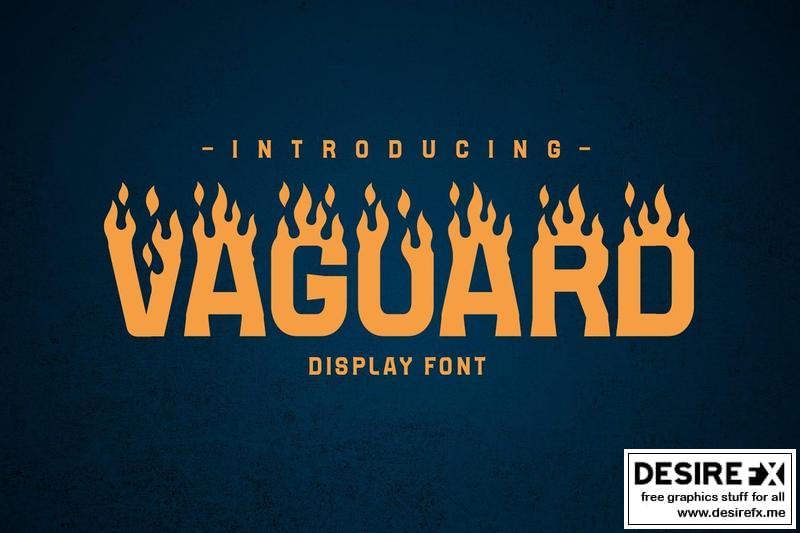
introducing, VAGUARD Font, this is a display and decorative with Burning fire looks!! very suitable for logos,
clothing, branding, and others. very easy to use without the hassle of drawing, Get inspired by its unique feel,
and turn to add a lovely charm to any crafts project you can immediately use it for all your needs.
Font Features:
- Uppercase
- Lowercase
- Numerals & Punctuation